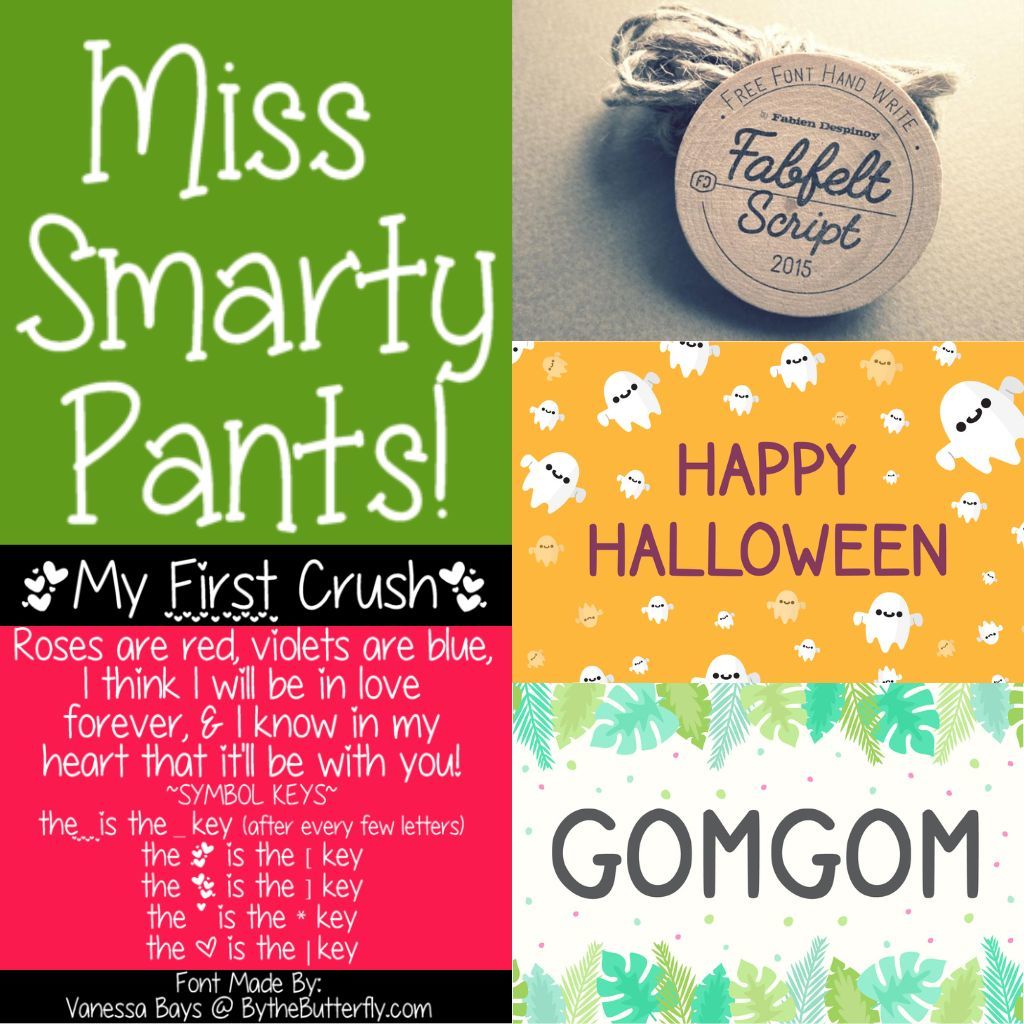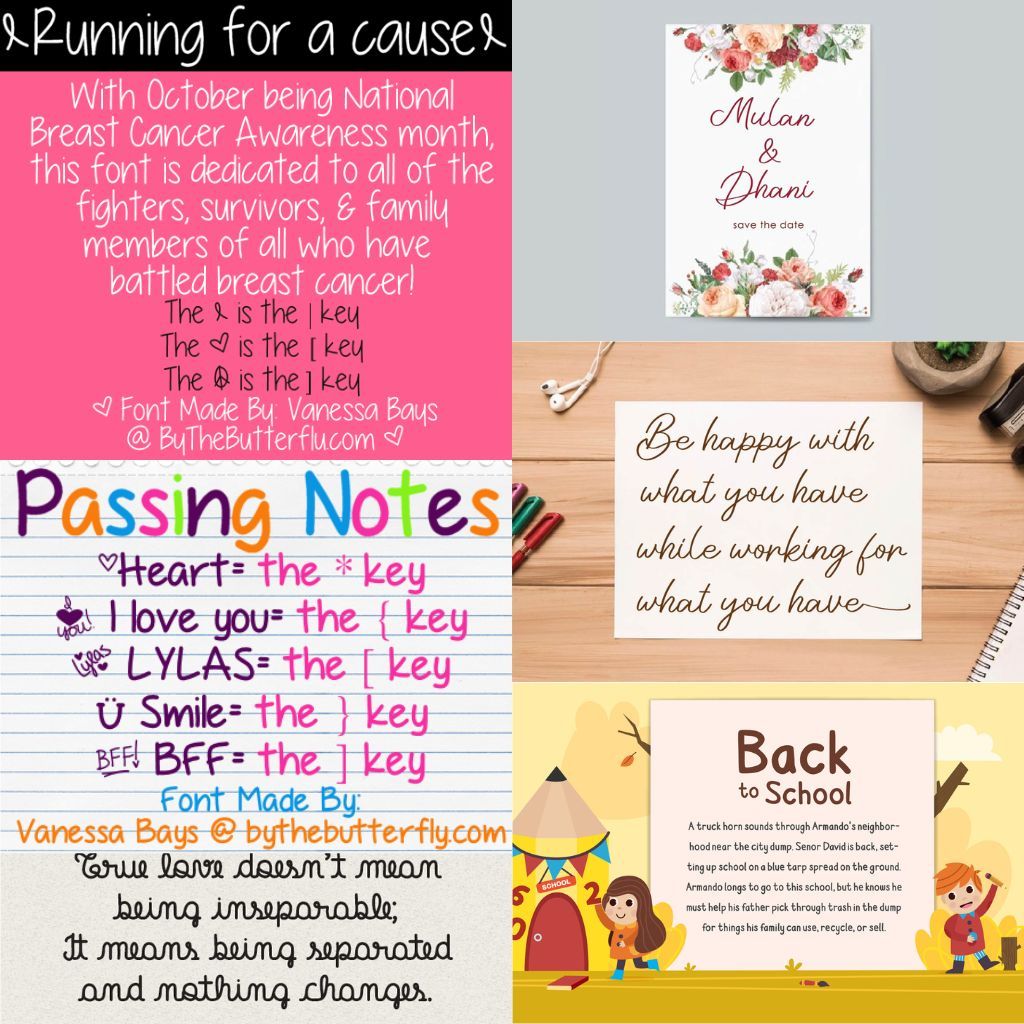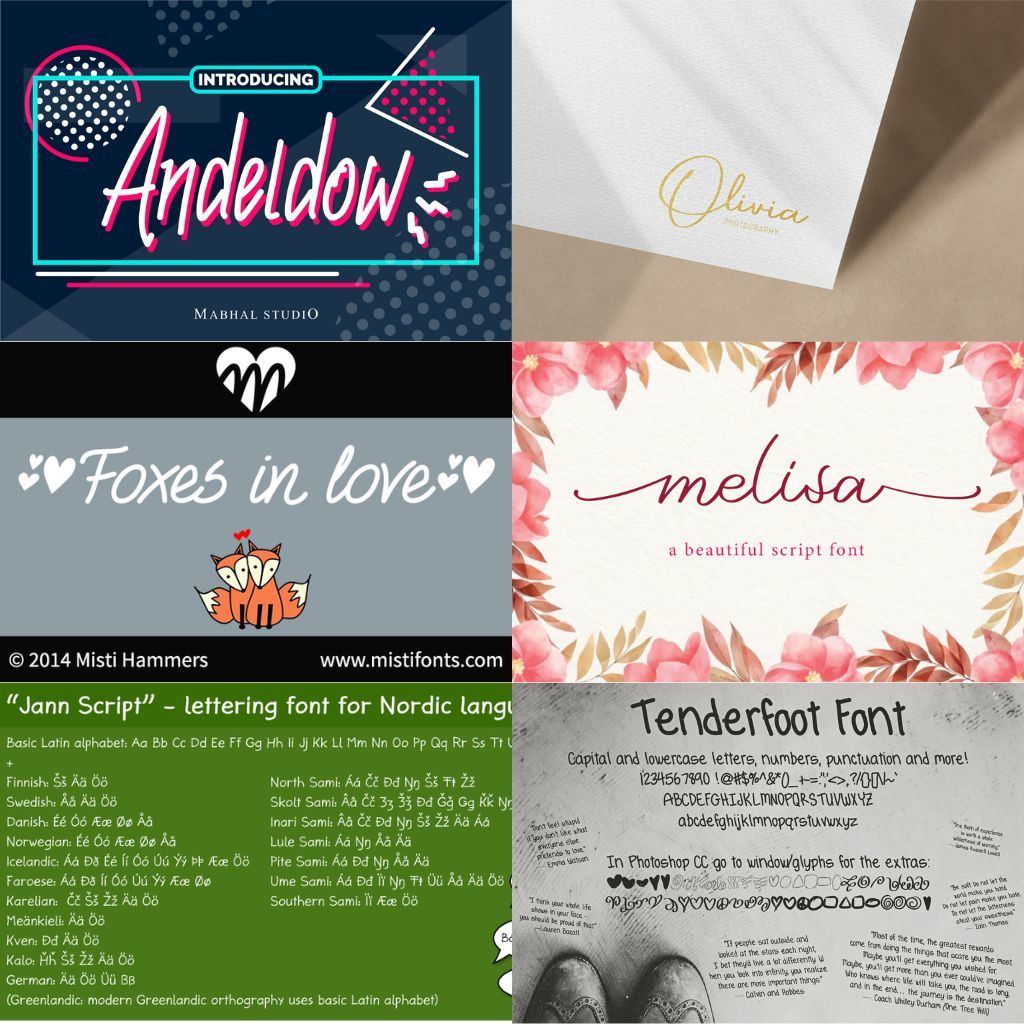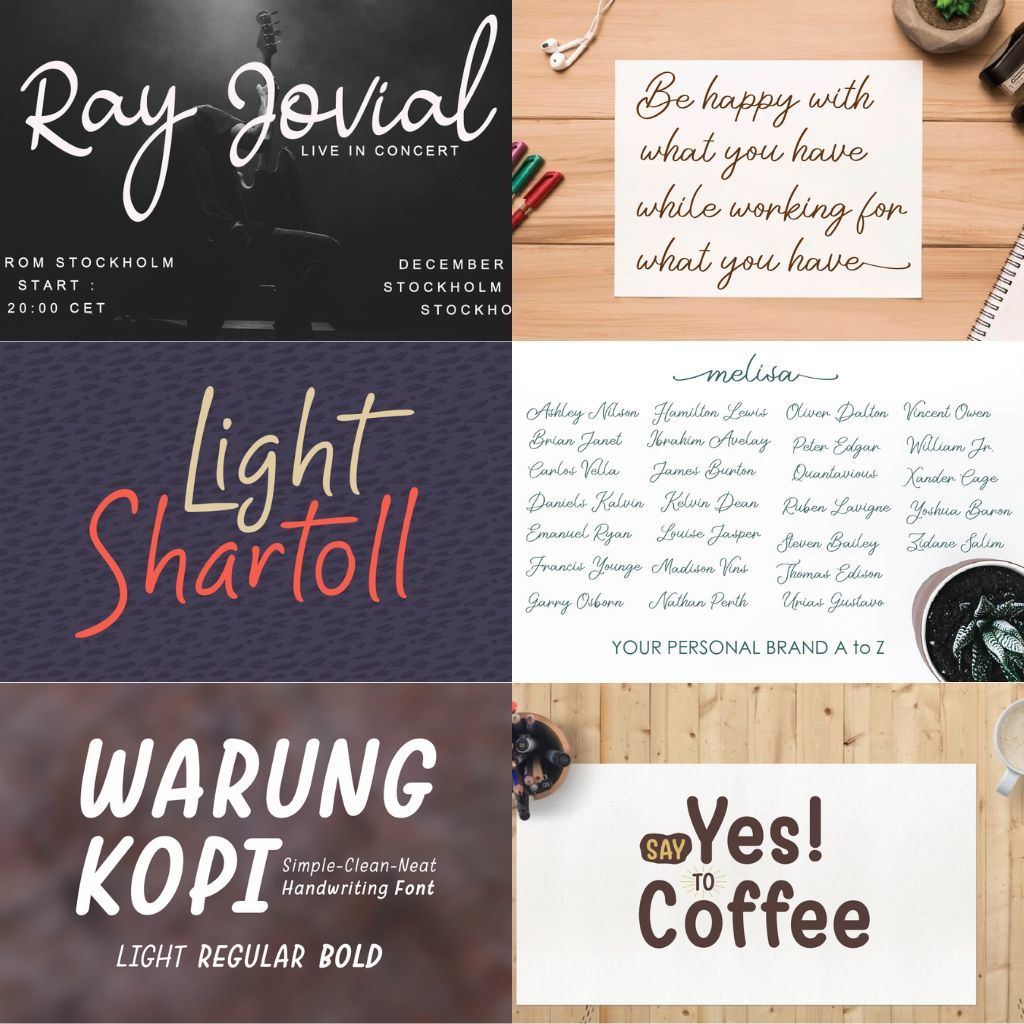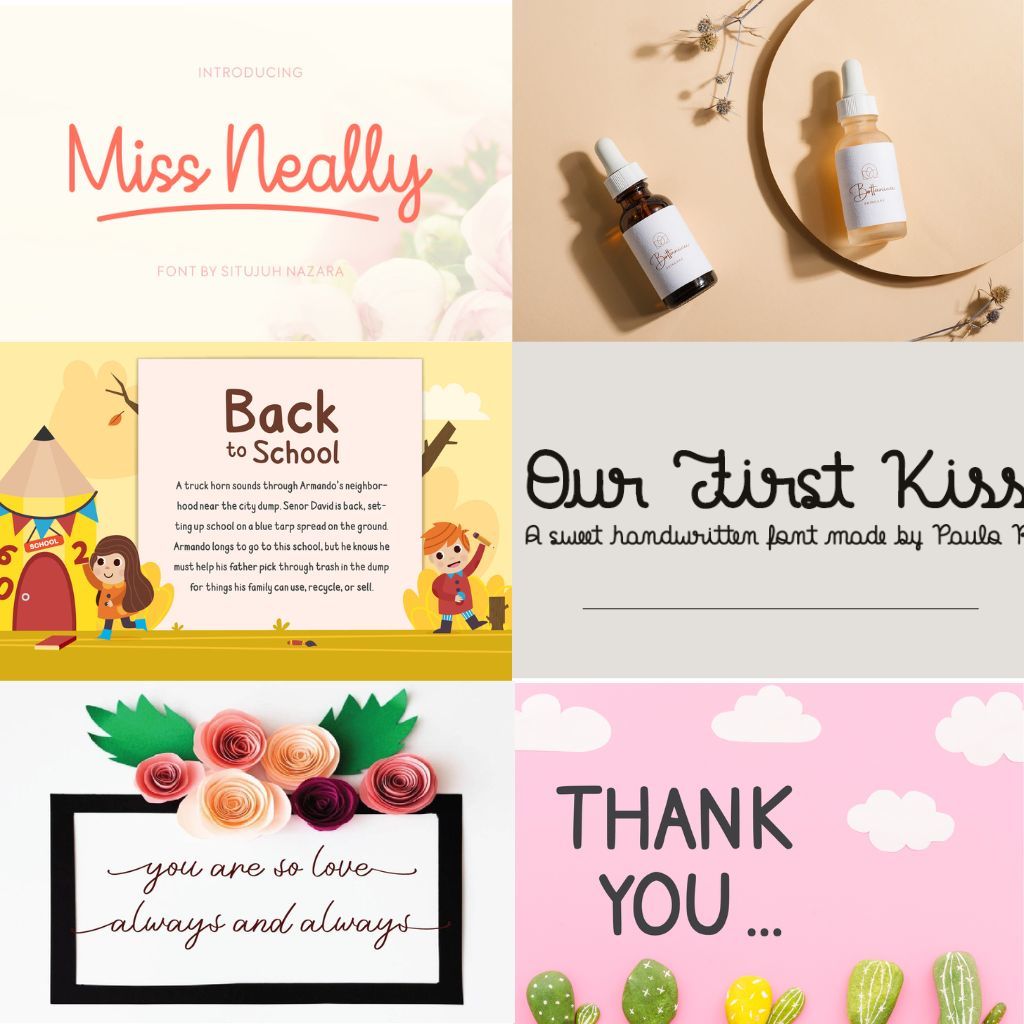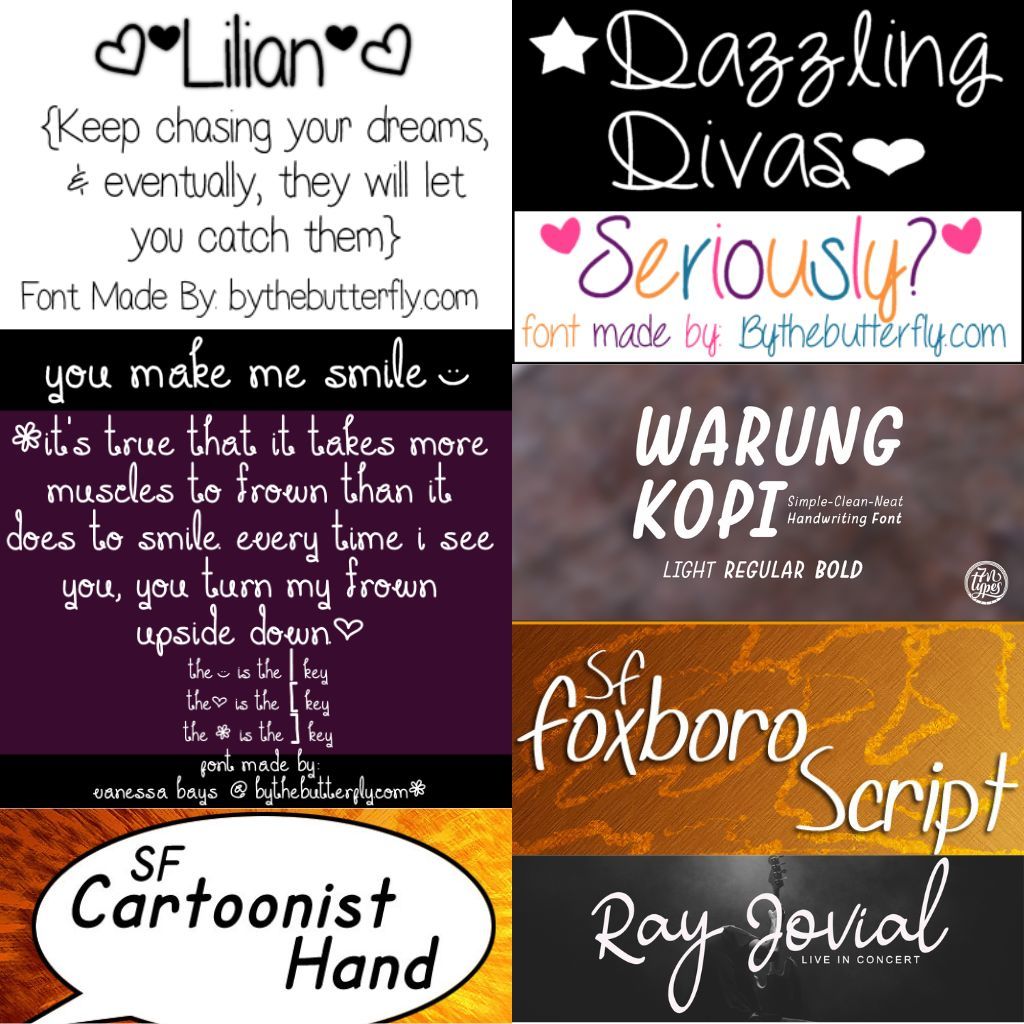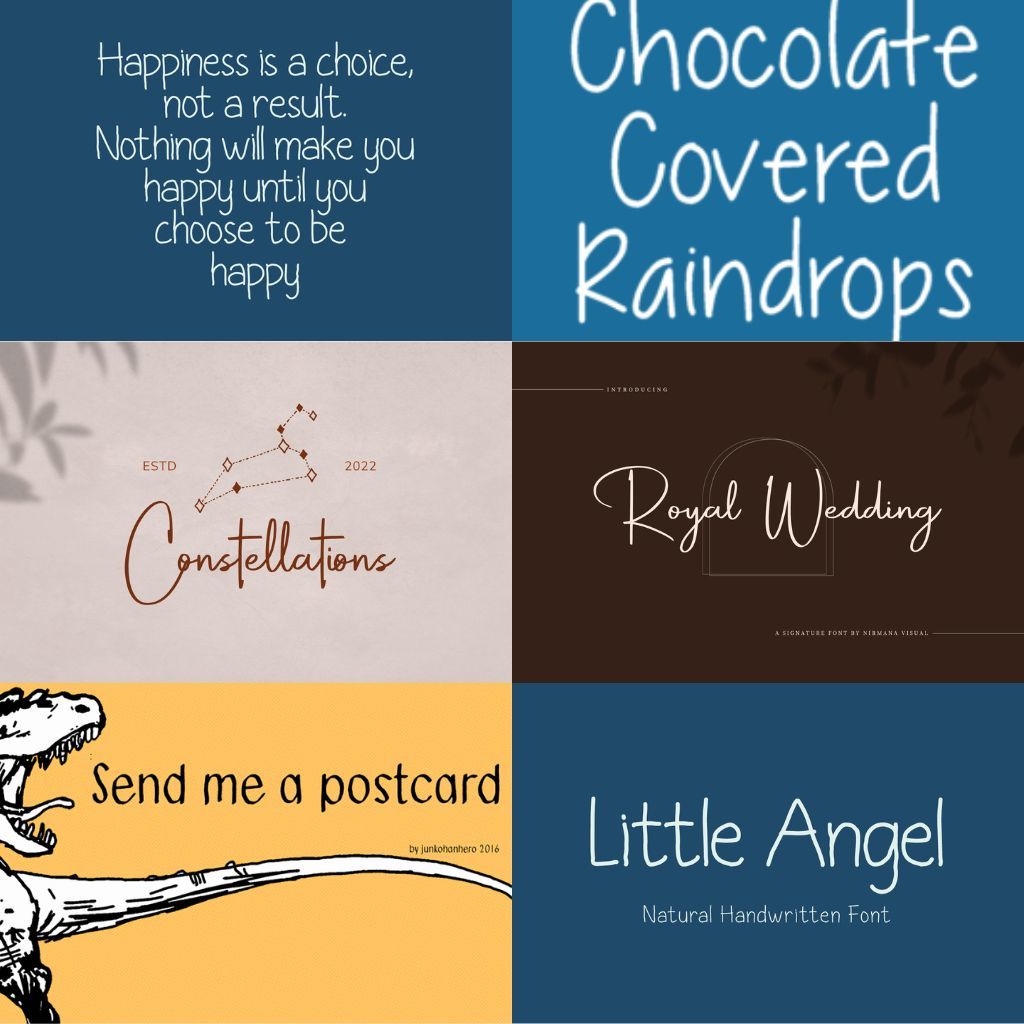
Transform your digital creations with the Neat Tidy Bundle, a thoughtfully curated collection featuring over 250 OTF and OTT files. Each font is crafted with precision, presenting a perfect harmony of style and simplicity. Our handwritten fonts boast a neat handwriting appeal, exuding a genuine and personal touch that's ideal for everything from digital scrapbooking to elegant presentations.
Imagine opening a world of creative possibilities with fonts that bring a study-inspired sophistication to every project. The simple font choices within this bundle offer versatility, seamlessly blending into a variety of themes while maintaining clarity and elegance. With a plethora of cute fonts included, you can add a playful charm to your works, making them irresistibly engaging and inviting.
Whether you're designing eye-catching invitations, crafting unique social media posts, or diving into digital journaling, this instant download equips you with the tools needed to elevate your designs to the next level. Each font functions like an artist's brushstroke, leaving behind a path of creativity that enlivens every word.
Intricately designed, these fonts are not merely digital assets; they are the essence of creativity, waiting to sparkle through your projects. The digital format ensures you have at your fingertips fonts that are both beautiful and easily accessible for those spur-of-the-moment design inspirations. Swift and efficient, the instant download feature means you can dive right into your creative journey without missing a beat.
Unlock the potential of authentic, tidy typography that imbues each project with a touch of warmth and clarity. The Neat Tidy Bundle is the pinnacle of digital font collections where meticulous design meets effortless application. Dive deep into a symphony of handwritten elegance and let each letter tell its own captivating story.